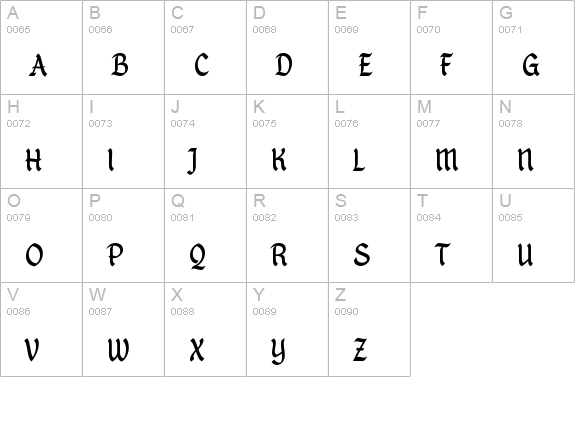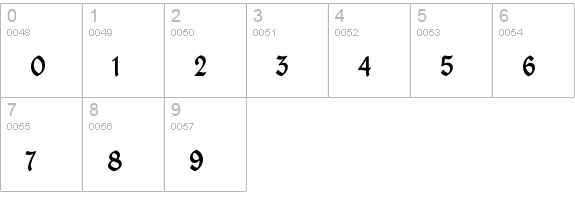
HouseHolidayTTF-Gothic Font Details
HouseHolidayTTF-Gothic is a stunning and elegant font that exudes a sense of mystery and sophistication. Its Gothic-inspired design features intricate details and sharp edges that make it perfect for adding a touch of drama to your projects. This font is ideal for creating eye-catching headlines, logos, and invitations. The best part is that HouseHolidayTTF-Gothic is available for free download at FontsMarket.com. You can easily access this unique font and enhance your designs with its bold and distinctive style. Don't miss out on the opportunity to elevate your projects with this captivating Gothic font that is both timeless and modern. Download HouseHolidayTTF-Gothic now and let your creativity shine!